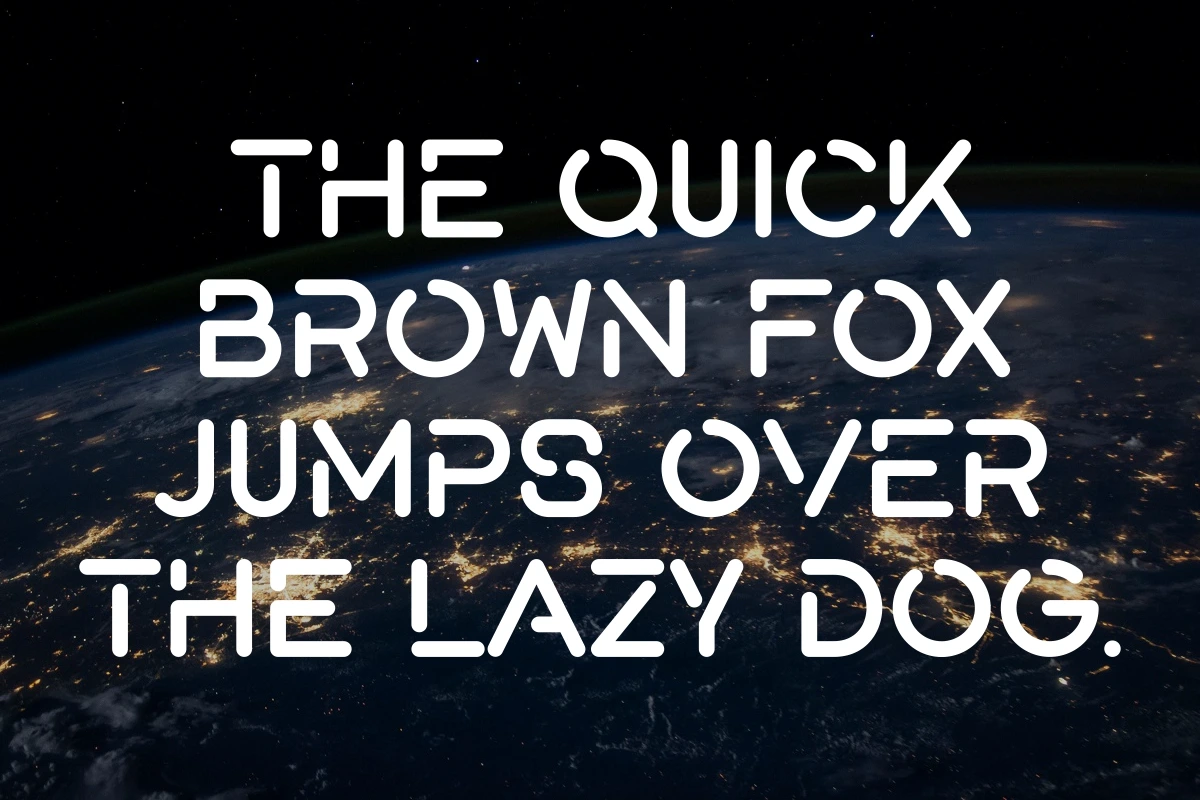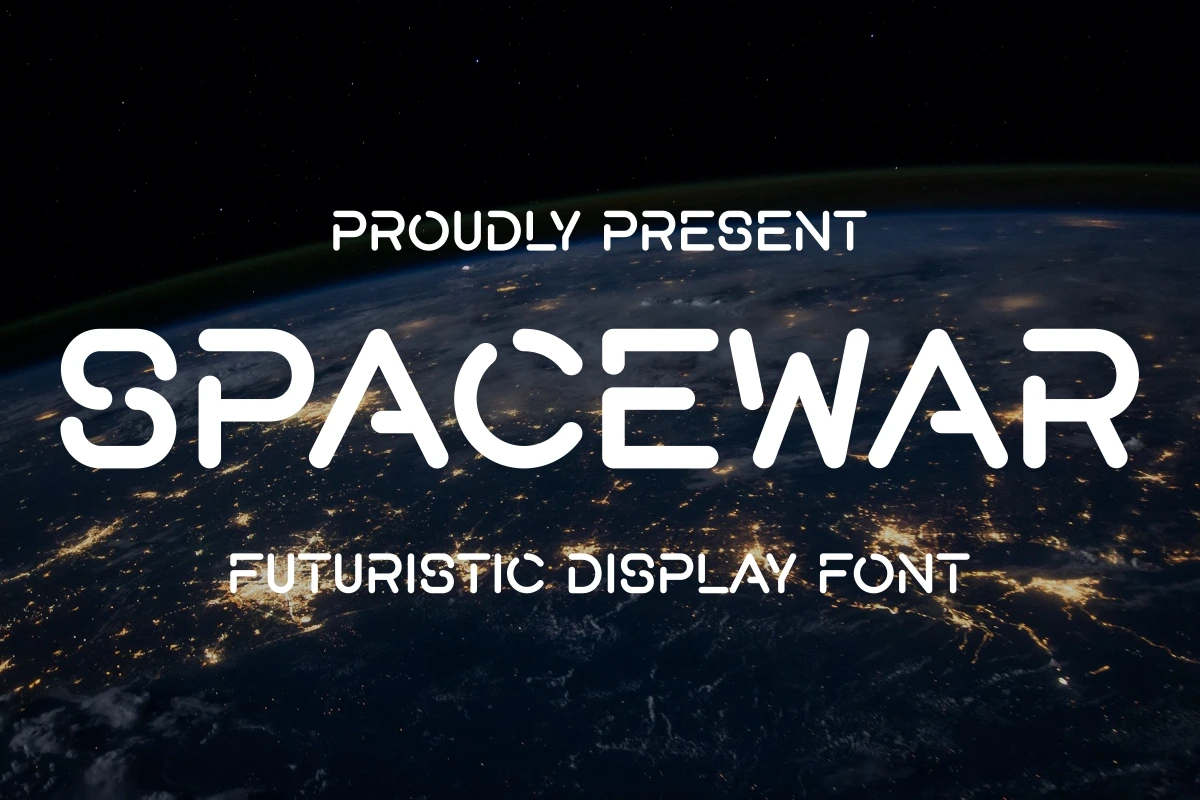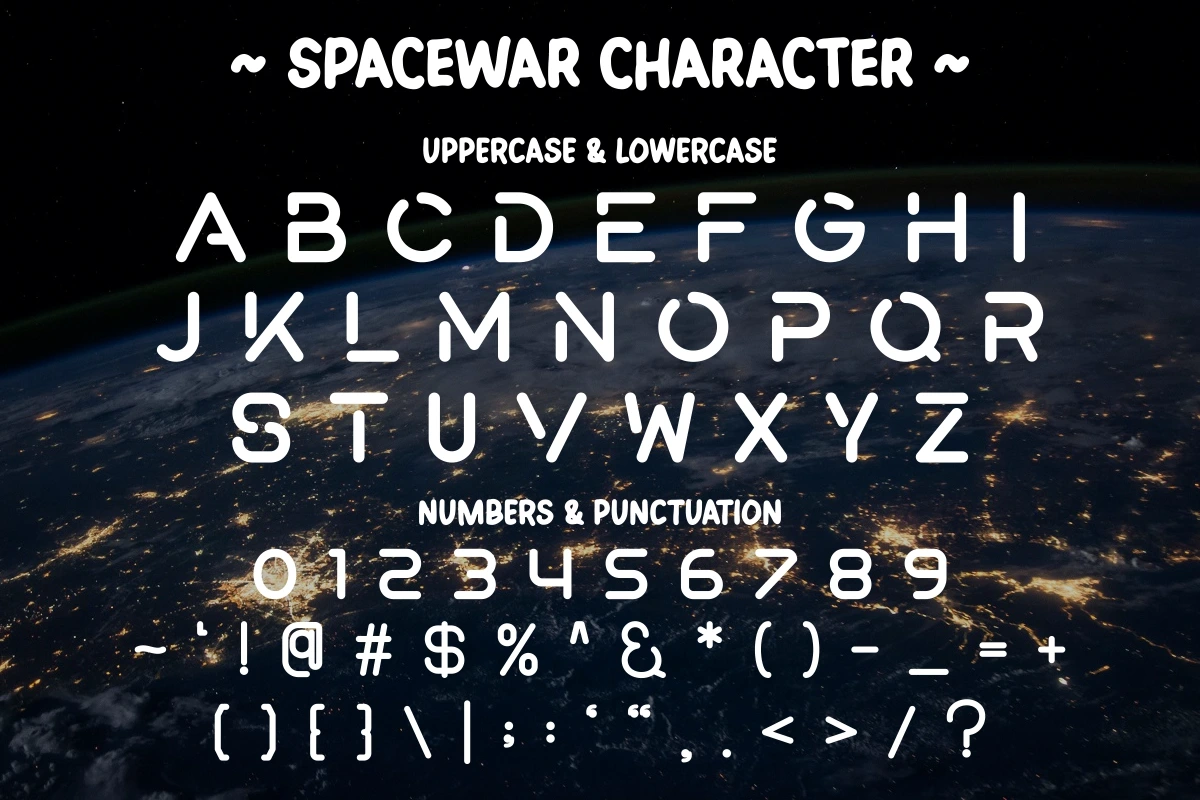
Spacewar - Futuristic Display Font
Spacewar is a bold and modern futuristic display font designed for high-impact visuals. With its unique rounded edges, sleek cutout shapes, and sci-fi inspired forms, this typeface brings a high-tech atmosphere to any project. Perfect for gaming titles, space-themed projects, tech branding, movie posters, UI interfaces, and digital artwork, Spacewar delivers a clean yet dynamic look that stands out effortlessly.
Whether you’re building a cyberpunk aesthetic or a modern futuristic identity, Spacewar offers versatility and strong visual character. Add this font to your creative toolkit and bring your designs into the next dimension.